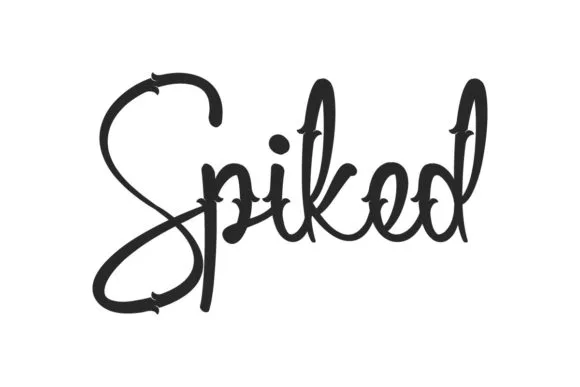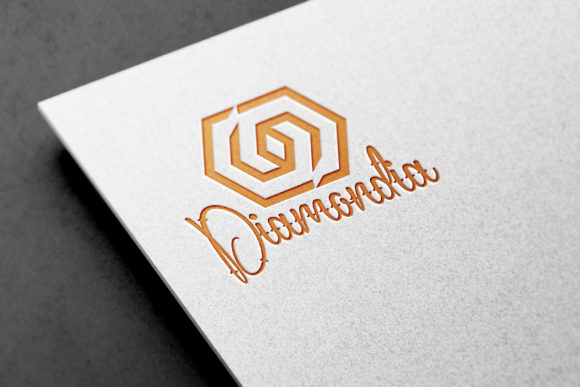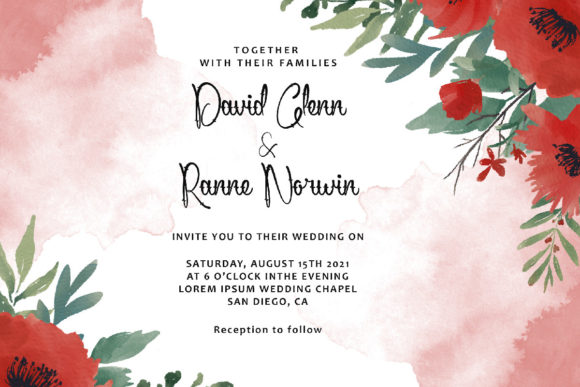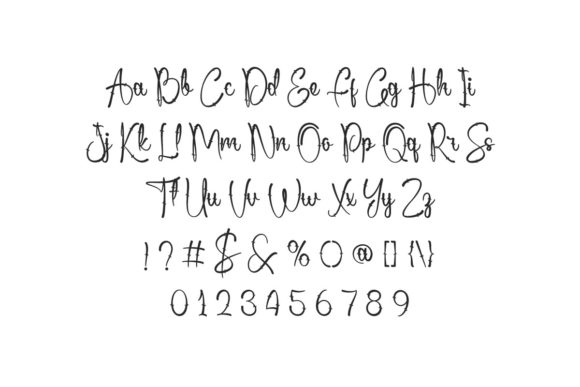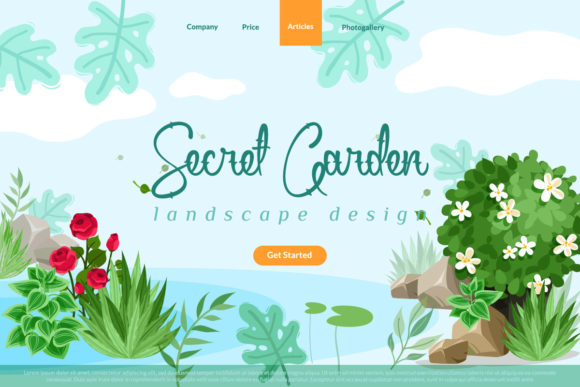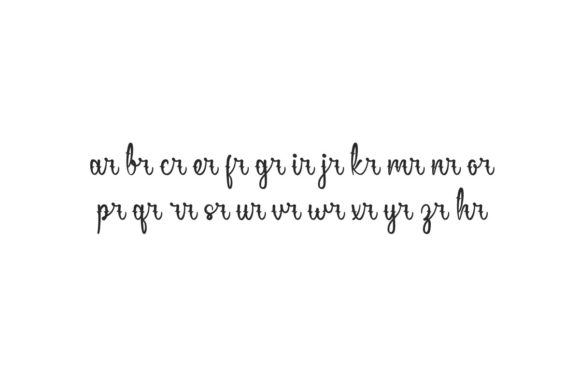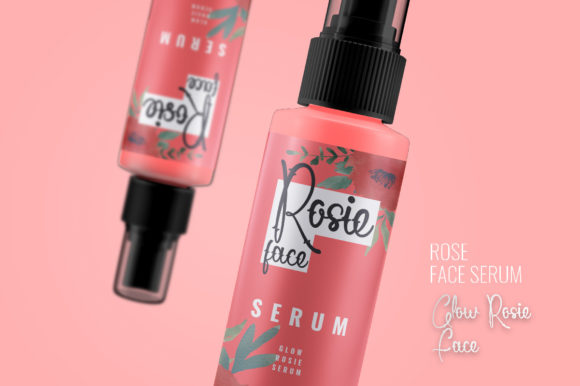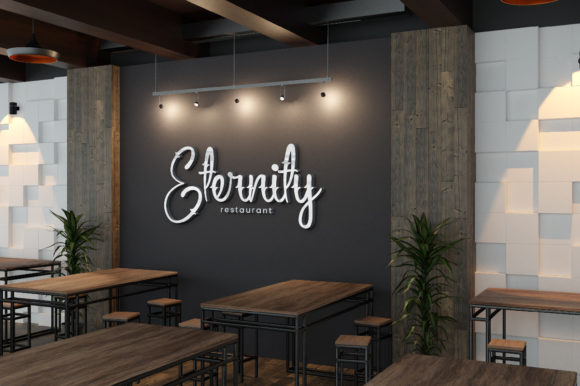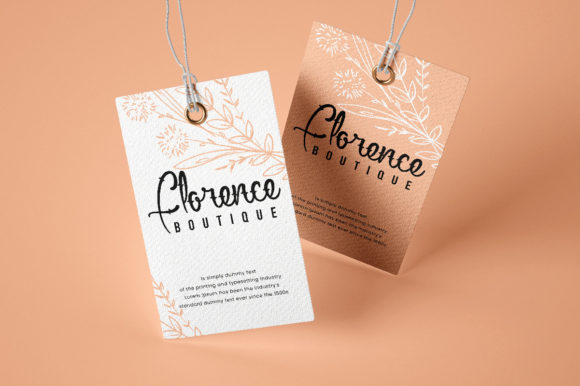
Spiked Font
About Spiked Font
Spiked is a delicate and trendy looking script font. Add it confidently to your projects, and you will love the results.